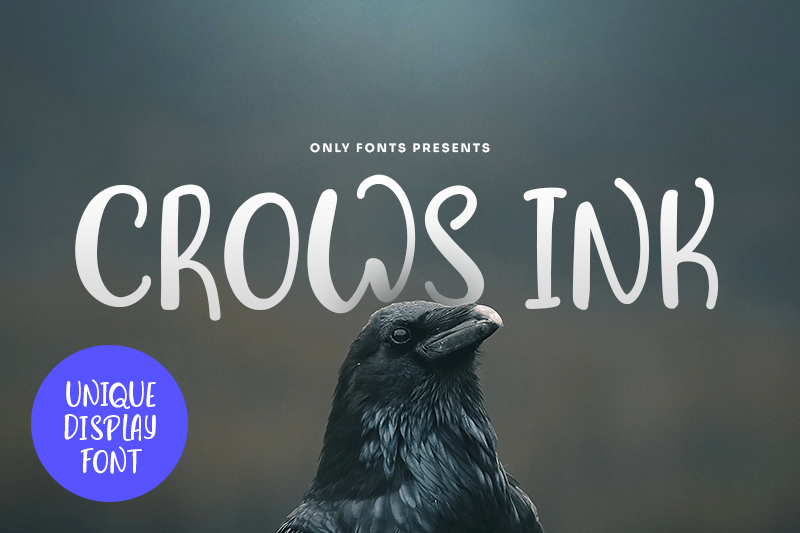
Preview and download Crows Ink Font. Created by Only Fonts in Script Various styles with Free for personal use license.
NEW: FREE for Personal and JUST 3$ for Commercial Use! Introducing our next "OnlyFont" - Project! A new font foundry that aims to make cool handcrafted fonts affordable for everyone. Its just 3$ for small companies and can be bought @ www.only-fonts.com/crowsink "Crows Ink" is a very unique display font that features dynamic and organic letters. Stand out with this script/handwritten styled headline font in style. Missing a glyph? No problem. We'll create up to three glyphs for you for free if you purchase a license! Need a custom wordmark or do you have any other questions? Get us at hello@only-fonts.com. |